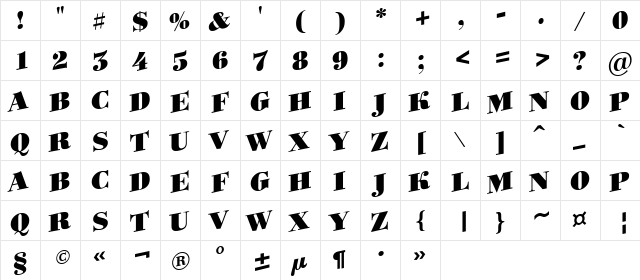
a_BodoniOrtoTitulSpUp Black
Design Context for a_BodoniOrtoTitulSpUp Typeface
a_BodoniOrtoTitulSpUp is a composed and adaptable typeface that performs quietly and consistently across a wide range of design contexts.